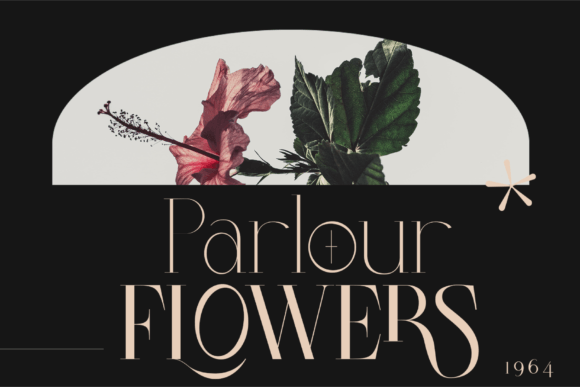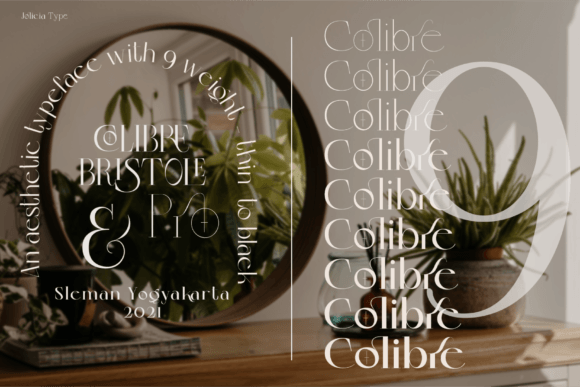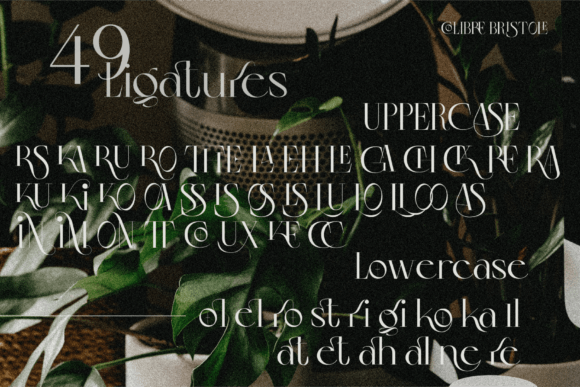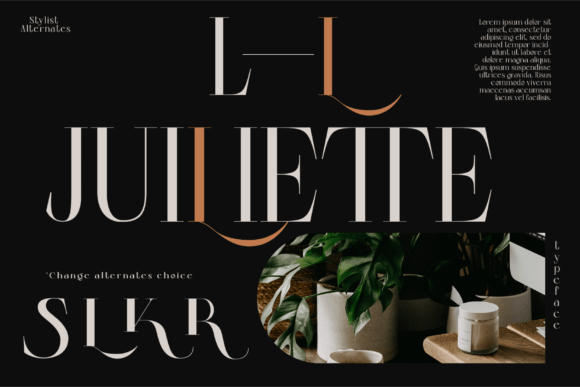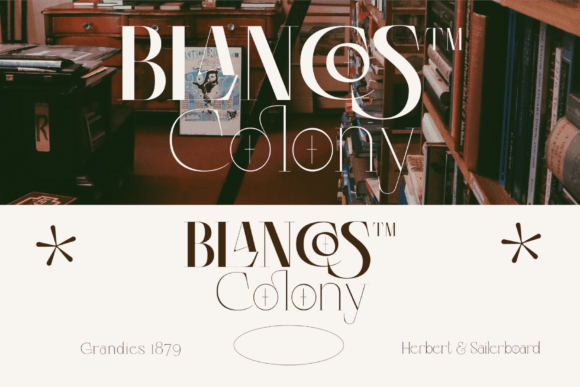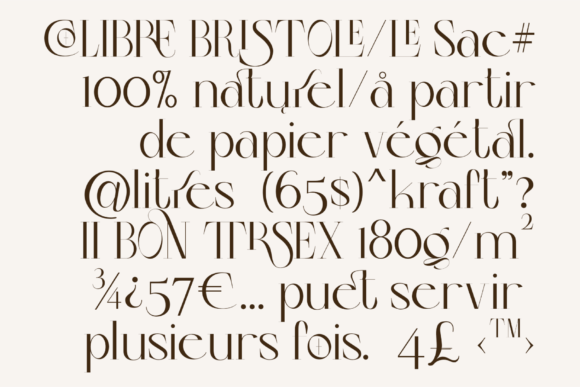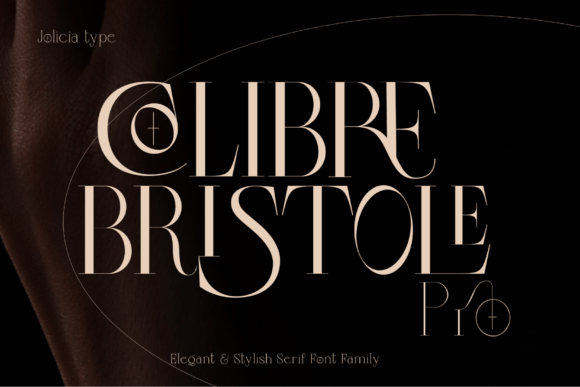
Introducing Colibre Bristole Pro: Elevate Your Typography with Precision Craftsmanship
In the world of typography, a font can make all the difference in the way a message is conveyed. For designers and crafters, finding the perfect font that combines elegance, readability, and versatility is a constant quest. This is where Colibre Bristole Pro comes into play—a serif font family crafted with precision to meet the demands of modern design. With its extensive range of styles and unique features, Colibre Bristole Pro is poised to become a staple in your typographic arsenal.
Precision Craftsmanship: The Essence of Colibre Bristole Pro
Colibre Bristole Pro is not just another font; it’s a meticulously crafted serif font family designed to bring a touch of sophistication to any project. The attention to detail is evident in its design, ensuring that each letterform is not only aesthetically pleasing but also highly legible. This balance between form and function makes Colibre Bristole Pro an excellent choice for a wide range of applications, from editorial design to digital content creation.
A Spectrum of Styles: 9 Weights to Explore
One of the standout features of Colibre Bristole Pro is its comprehensive range of styles. The font family consists of 9 styles, spanning from Thin to Black. This versatility allows designers to employ a range of typographic hierarchies, making it easier to guide the reader’s eye through the content. Whether you’re looking to create a subtle, elegant headline or a bold, impactful statement, Colibre Bristole Pro offers the flexibility to achieve your design goals.
Enhancing Readability: 49 Ligatures for Interactive Writing
What sets Colibre Bristole Pro apart from many other serif fonts is its inclusion of 49 ligatures. Ligatures are typographic features that combine two or more letters into a single glyph, enhancing the flow and readability of text. In Colibre Bristole Pro, these ligatures not only improve the aesthetic appeal of the written content but also make reading more engaging. This feature is particularly beneficial for body text, where a smooth reading experience is paramount.
Applications for Designers and Crafters
Colibre Bristole Pro’s range of applications is vast. Designers can use it for:
- Editorial Design: Create stunning magazines, newspapers, and journals with its elegant and readable serif style.
- Branding: Establish a strong brand identity with a font that exudes professionalism and sophistication.
- Digital Content: Enhance user experience on websites, blogs, and digital publications with its clear and engaging typography.
- Packaging: Stand out on store shelves with eye-catching packaging designs that leverage the font’s versatile styles.
Why Choose Colibre Bristole Pro?
Choosing Colibre Bristole Pro for your typography needs comes with several advantages:
- Versatility: With 9 styles and 49 ligatures, it offers a wide range of typographic possibilities.
- Legibility: Designed for readability, it ensures your message is conveyed clearly and effectively.
- Elegance: Adds a touch of sophistication to any design project.
- Precision: Crafted with attention to detail, ensuring high-quality typography.
Colibre Bristole Pro is more than just a serif font family; it’s a tool for designers and crafters to elevate their work. Its precision craftsmanship, range of styles, and unique ligatures make it an invaluable asset for anyone looking to enhance their typography. Whether you’re working on a digital project or a print design, Colibre Bristole Pro offers the versatility and elegance needed to make your work stand out. Explore the possibilities of Colibre Bristole Pro today and discover a new level of typographic excellence.